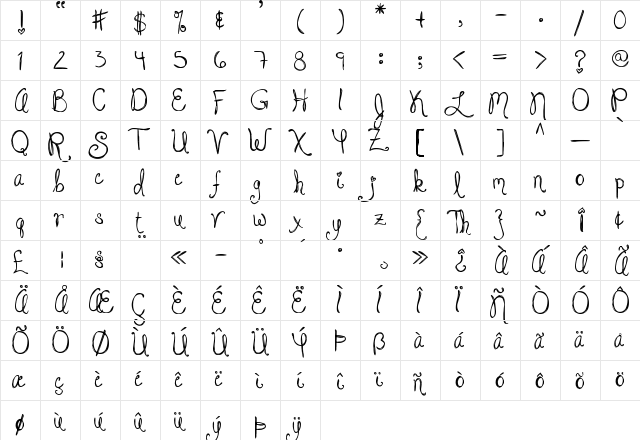
DJB JACKED UP KINDA LUV Regular
| Designer | Darcy Baldwin (djbfontography) |
Design Context for DJB JACKED UP KINDA LUV Typeface
DJB JACKED UP KINDA LUV is a composed and adaptable typeface that performs quietly and consistently across a wide range of design contexts.